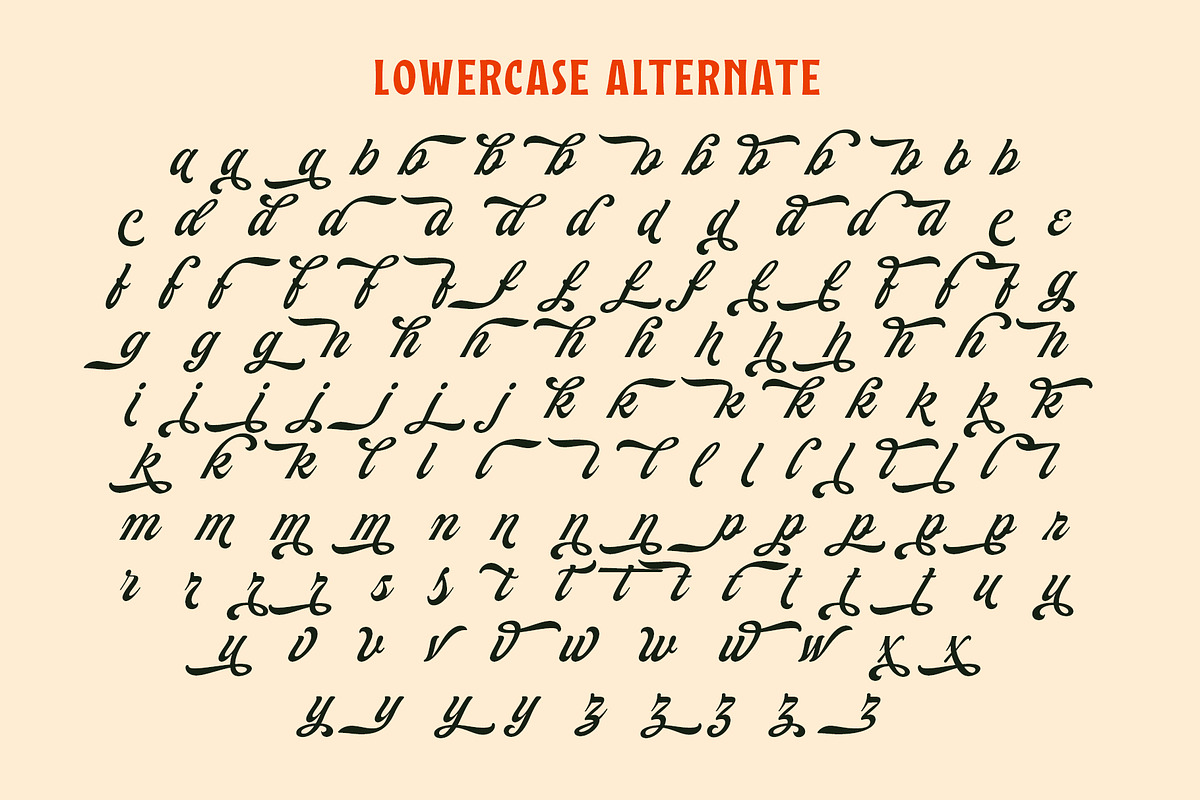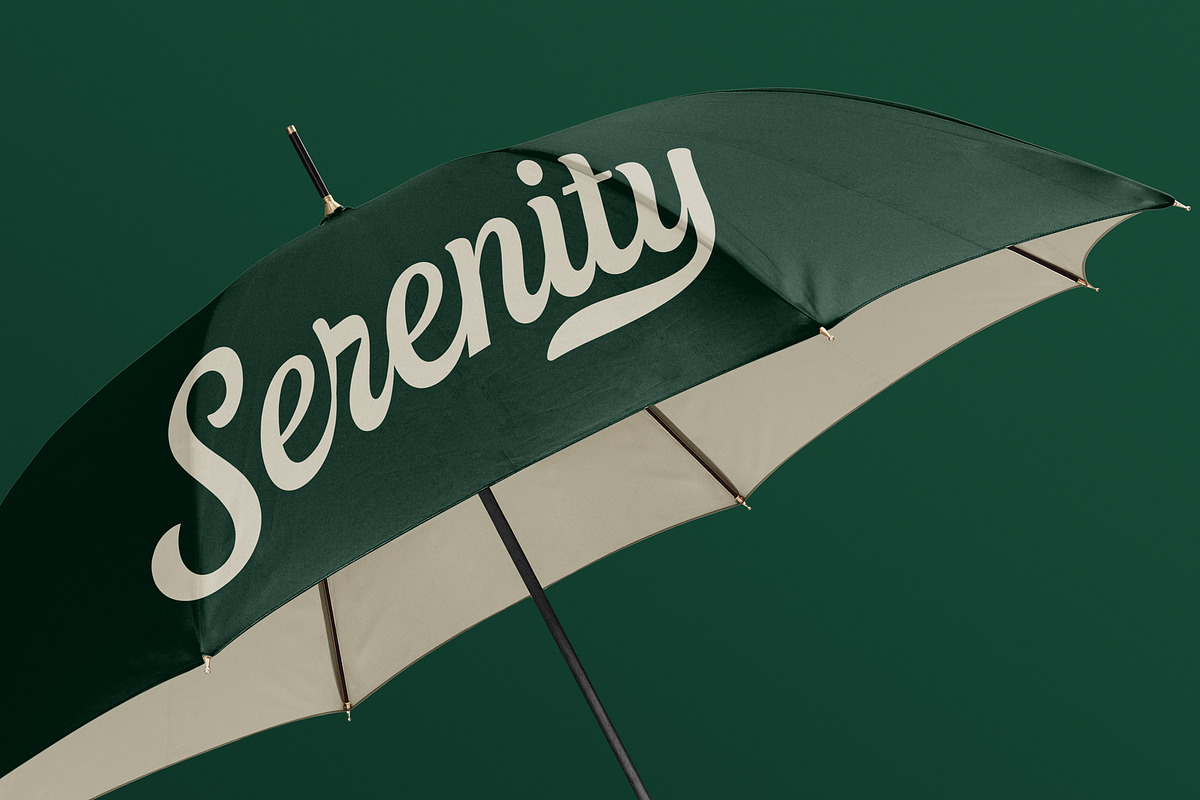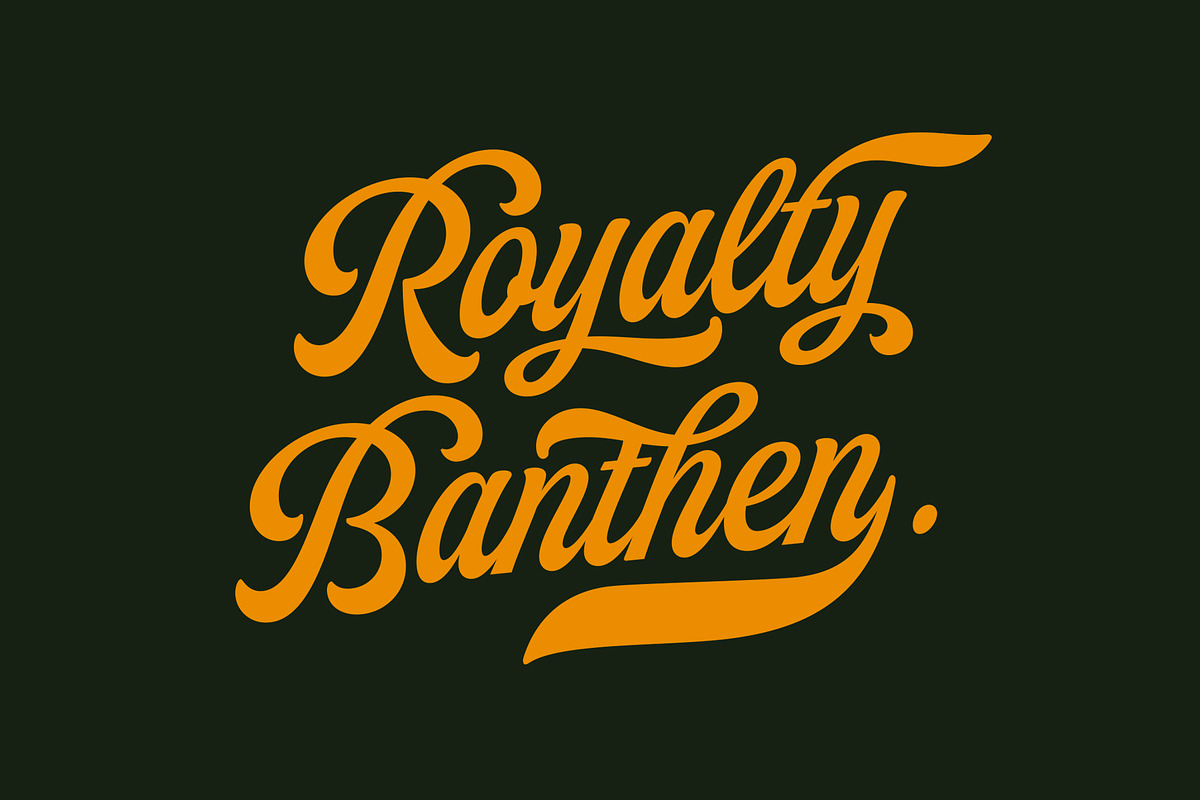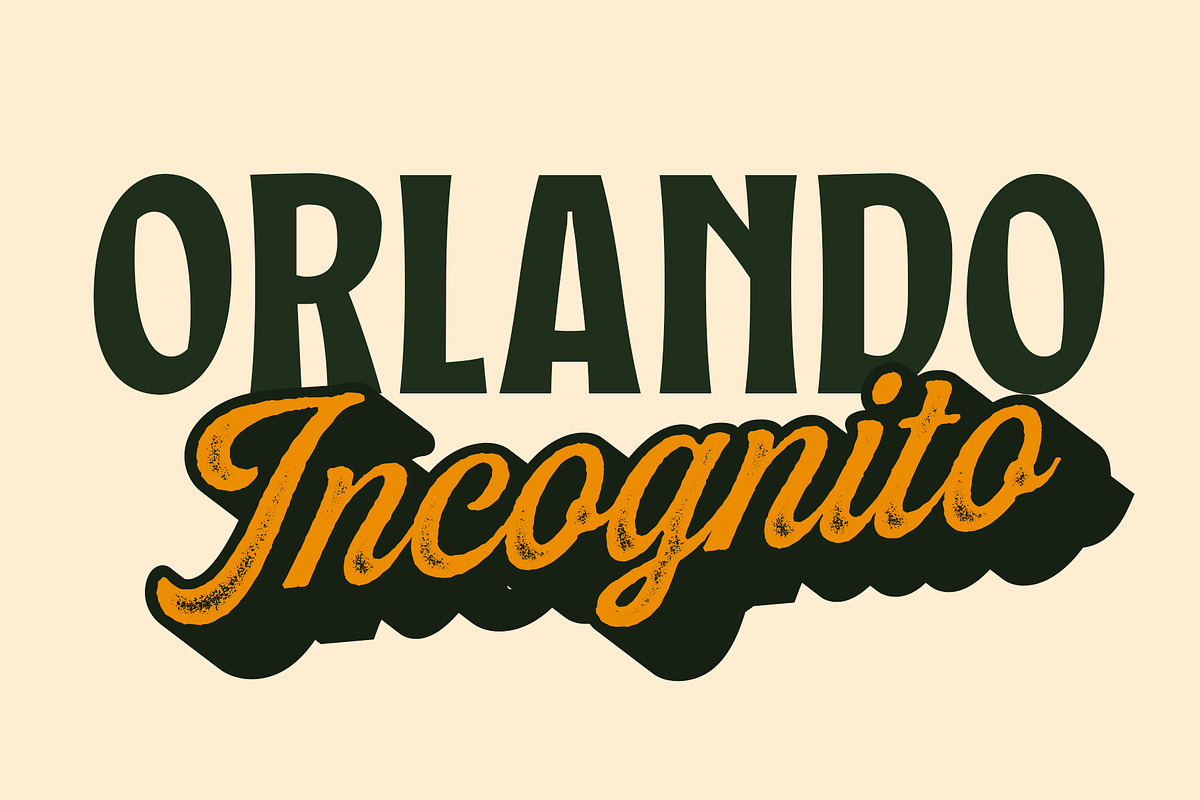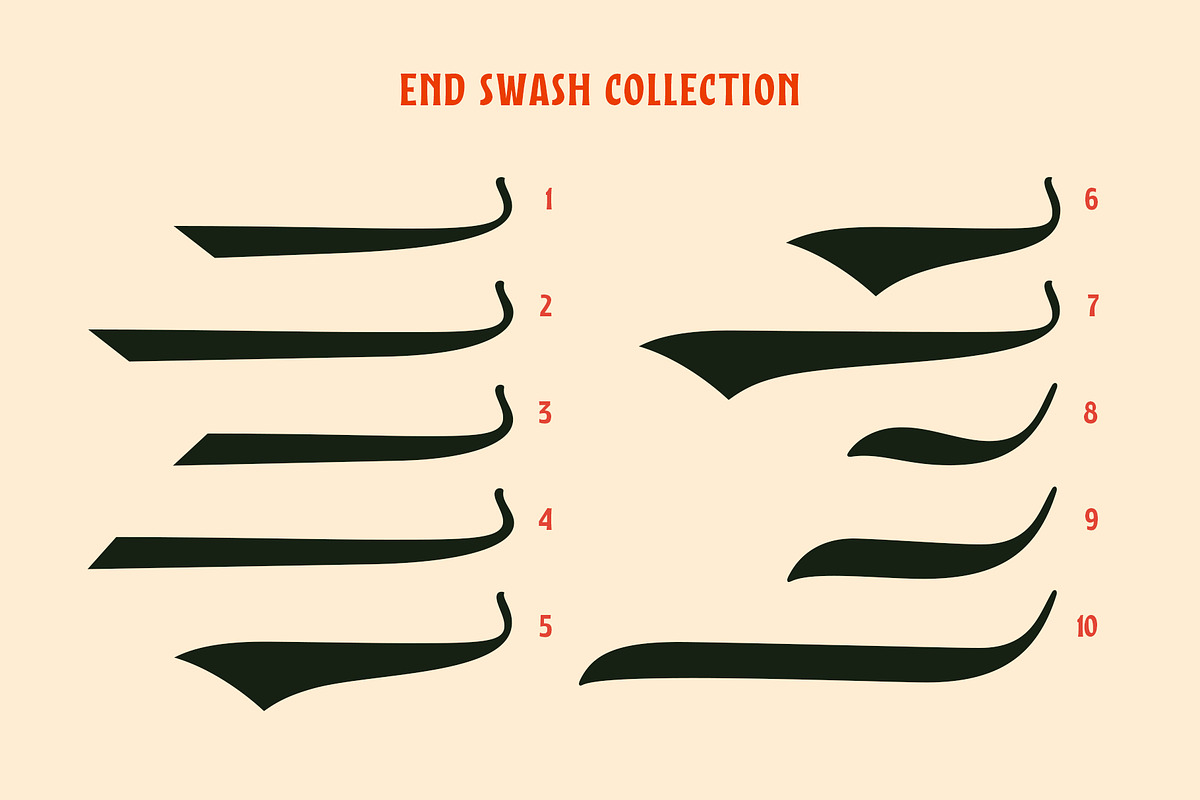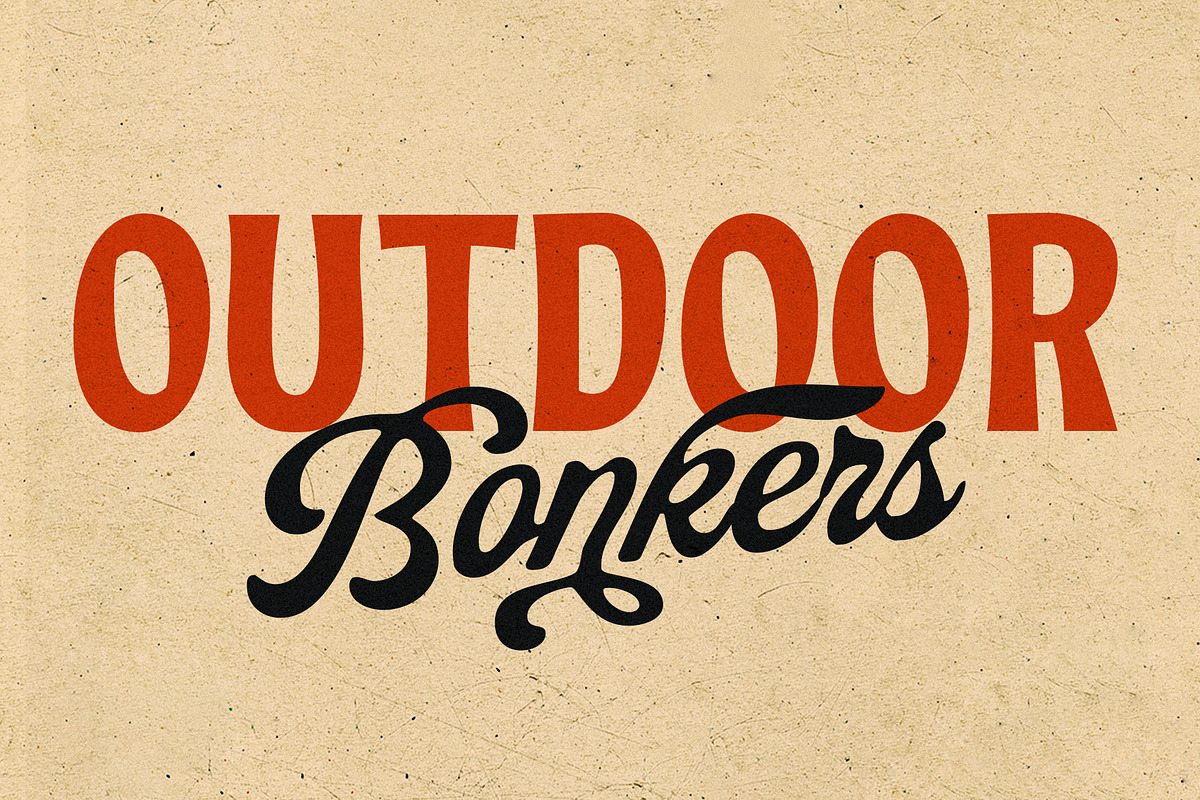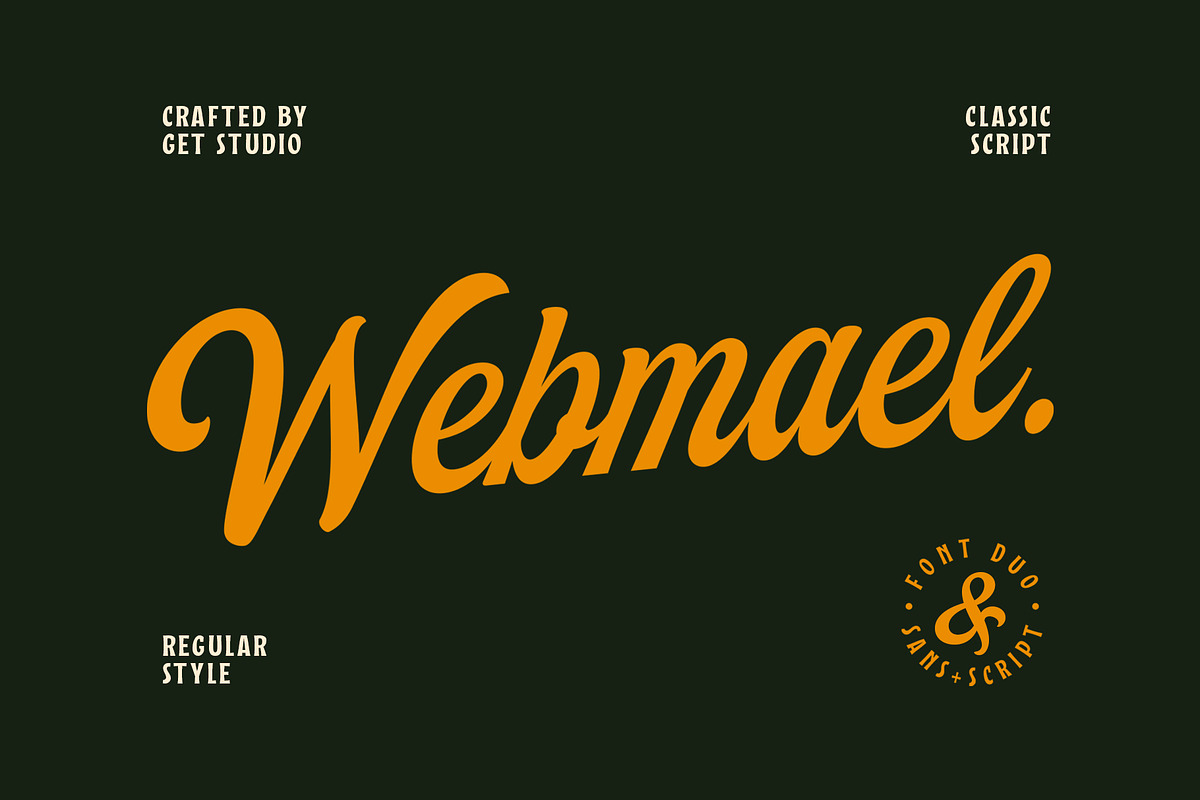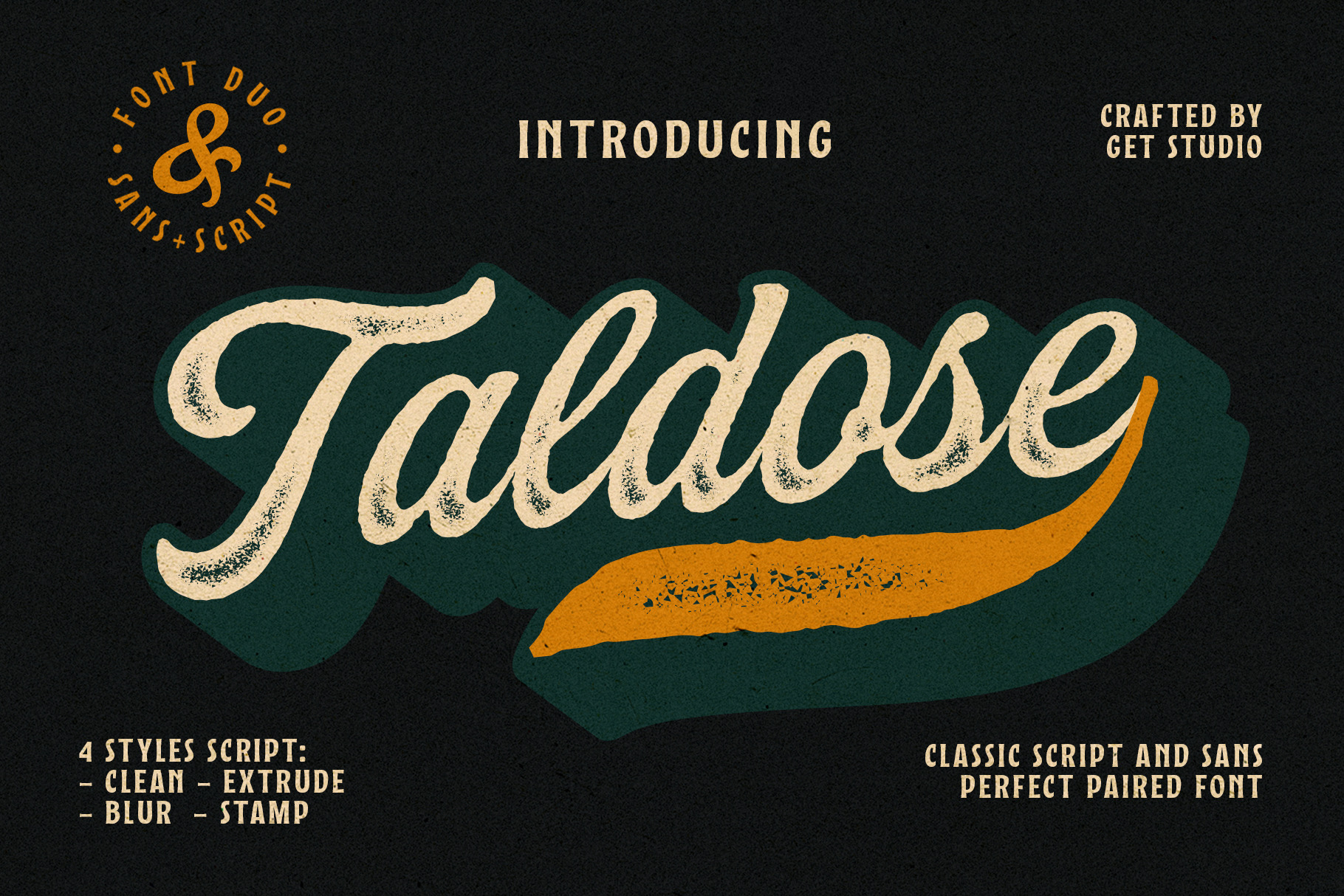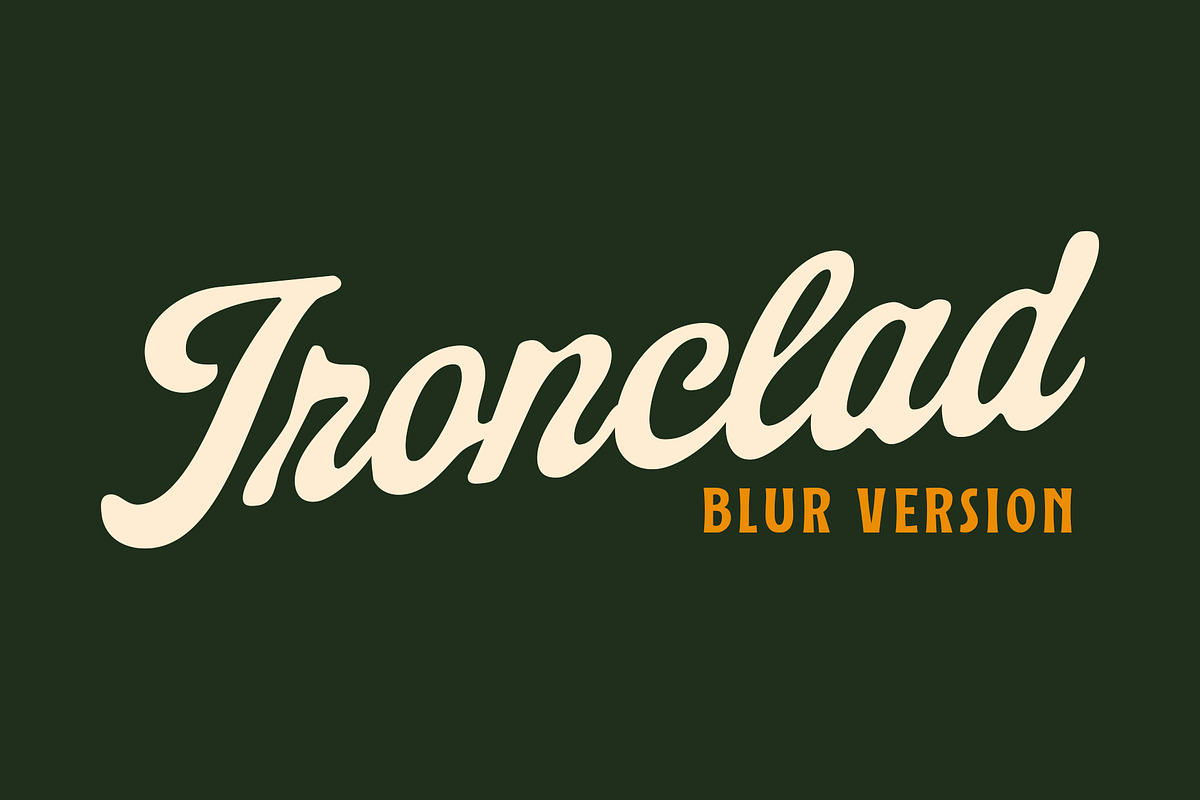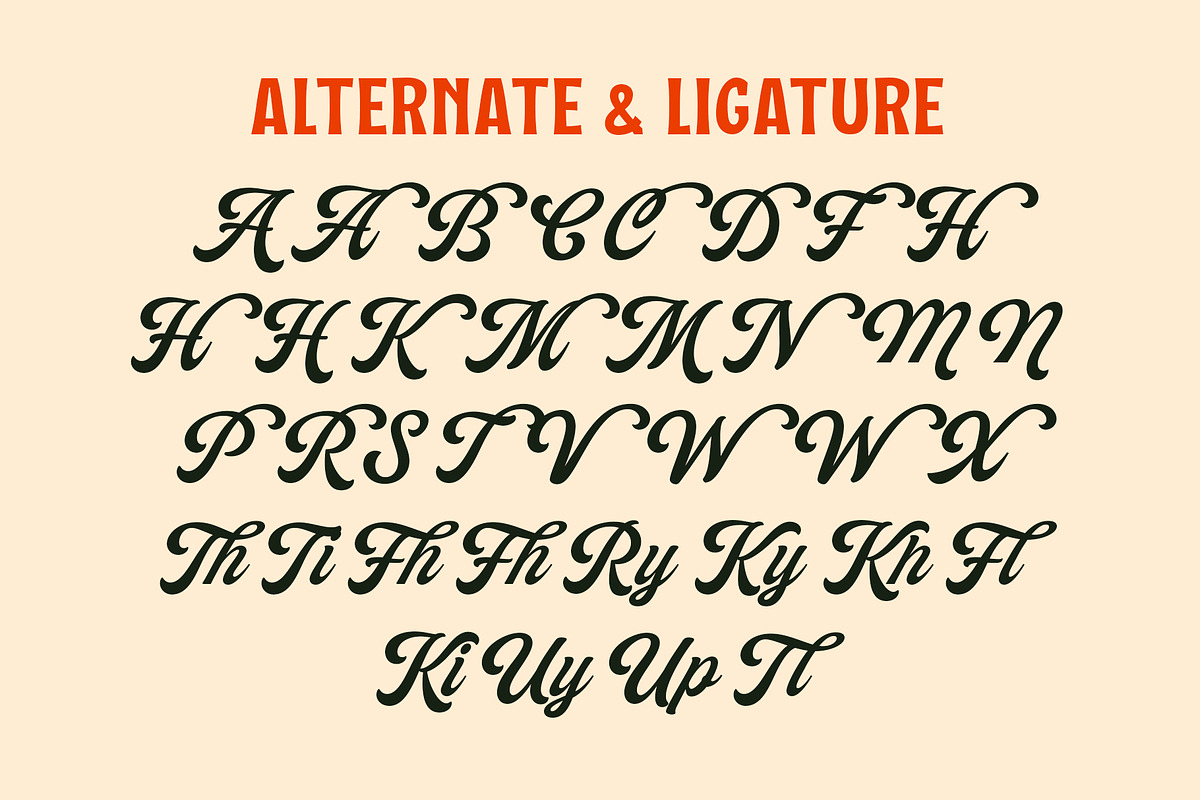
Taldose - Font Duo
Taldose is a stunning script font that blends classic elegance with a modern touch, designed to enhance any creative project. This font comes in four versatile styles: Clean, Blur, Stamp, and Extrude, offering a range of options to suit various design needs. The Clean style delivers smooth, polished characters perfect for sleek and professional designs, while the Blur and Stamp styles add texture and depth for a more handcrafted, vintage feel. The Extrude style, with its bold and dimensional look, provides a striking presence ideal for impactful headlines and logos.
As a special bonus, Taldose includes “Brookvale,” a complementary sans-serif font that pairs perfectly with the script. Brookvale’s clean, straightforward lines balance the fluidity of Taldose, making it an excellent choice for creating cohesive typography combinations in logos, headers, branding, and more. Together, these fonts offer a timeless aesthetic that suits a wide range of projects, whether you’re designing for print or digital platforms.
- Taldose Script
- Taldose Blur
- Taldose Stamp
- Taldose Extrude
- Brookvale Sans (Bonus)